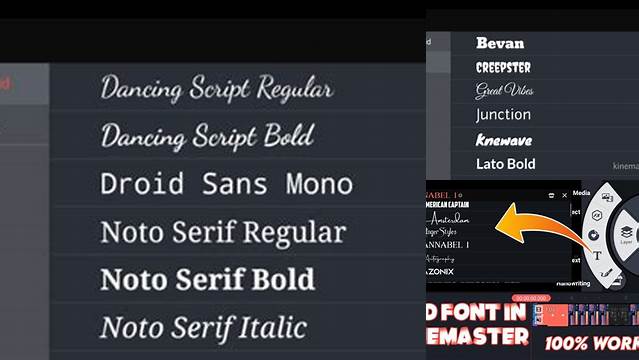
KineMaster Fonts Guide: Your Text Style Handbook
Hey guys! Let's dive deep into the world of KineMaster fonts. If you're a video editing enthusiast, a budding content creator, or just someone who loves to add some pizzazz to their videos, then you're in the right place. This comprehensive guide is all about KineMaster fonts, and how you can use them to elevate your video projects. We'll cover everything from the default font options available in KineMaster to how you can install and utilize custom fonts, ensuring your videos truly stand out. Get ready to transform your videos into visually stunning masterpieces with the perfect text styles!
Understanding KineMaster Fonts: The Basics
So, what exactly are KineMaster fonts? Simply put, they are the text styles you use to add titles, captions, and other text elements to your videos within the KineMaster application. Think of them as the clothing for your words! Just like you choose the right outfit for an occasion, selecting the right font can drastically change the tone and impact of your video. The beauty of KineMaster fonts lies in their versatility; they allow you to convey different messages, evoke various emotions, and ultimately, make your content more engaging. KineMaster comes pre-loaded with a selection of default fonts, offering a solid starting point for your video editing endeavors. These default fonts are generally safe choices, well-suited for a variety of video projects. However, the real magic happens when you explore the possibility of adding custom fonts, which can give your videos a unique and personalized touch.
When choosing a font, consider your video's overall theme, the message you want to convey, and your target audience. For instance, a playful, cartoonish font might be perfect for a kids' video, while a sleek, modern font might suit a tech review. Legibility is also paramount. No matter how stylish a font looks, if it's difficult to read, it defeats the purpose. Try to select fonts that are clear and easy on the eyes, especially when used in captions or subtitles. Furthermore, always ensure that the font you choose complements your video's visual elements, such as the background, colors, and overall aesthetic. The goal is to create a cohesive and visually appealing experience for your viewers. With a little bit of creativity and some smart font choices, you can make your videos truly memorable. This is your ultimate guide. We'll break down all the essential information you need to know about KineMaster fonts so that you can make informed and creative decisions!
Exploring Default Fonts in KineMaster
Alright, let's talk about the default fonts in KineMaster. When you first open KineMaster and start working on a video, you'll find a selection of pre-installed fonts readily available for use. These are the go-to options if you want to add text quickly without the hassle of downloading and installing new fonts. The default fonts in KineMaster are generally pretty versatile, covering a range of styles to fit various video projects. They usually include basic fonts like Arial, Times New Roman, and Open Sans, offering you simple, readable options for titles, captions, and other text elements. These fonts are designed to be legible and adaptable to different video styles. While they might not be the flashiest, they're reliable and effective for getting your message across. To access these fonts, simply add a text layer to your video within KineMaster. Then, tap on the font selection option, and you'll see a list of the default fonts available.
Experiment with each font to see how it looks and feels with your video content. Consider the readability, the style, and how well it complements the other visual elements of your video. Remember, the goal is to create a harmonious visual experience. Although the default fonts may seem limited at first glance, they offer a solid foundation for your video editing needs. You can always adjust the size, color, and style of these fonts to create a look that fits your video's style. Bold, italic, and underline options are often available, allowing you to customize the text further. If you're a beginner or simply need to add text quickly, the default fonts in KineMaster are a great starting point. In the end, the power of KineMaster fonts, whether default or custom, lies in your creativity and how you choose to utilize them. Keep exploring, keep experimenting, and most importantly, have fun with it!
How to Add and Use Custom Fonts in KineMaster
Tips for Choosing the Right Font for Your Video
Choosing the right font can make or break your video. Let’s look at some essential tips to help you make the perfect font selection. Firstly, consider your video's overall tone and style. Is your video fun and lighthearted, or is it serious and professional? Choose a font that aligns with the mood you want to convey. A playful, quirky font might be perfect for a comedy skit, while a clean, modern font might be better suited for a corporate presentation. Secondly, think about your target audience. What kind of fonts do they like? Are they more into traditional or contemporary styles? Understanding your audience's preferences will help you choose a font that resonates with them.
Thirdly, prioritize legibility. The text in your video needs to be easy to read, especially if you are using it for captions or important information. Avoid fonts that are too elaborate or ornate, as they can be difficult to decipher. If you are using a font for a headline, you can get away with something a bit more decorative, but for body text, stick to clear and simple fonts. Fourthly, consider the size and placement of your text. Make sure that the font size is large enough to be read easily on different screens. Consider the background of your video. If it’s a busy background, you might want to choose a bold font with a contrasting color to ensure that the text stands out. Experiment with different font styles, sizes, and colors. Try to use font pairings. Pairing different fonts is an art in itself! Choose two or three fonts that complement each other. Finally, keep it simple and avoid using too many different fonts in a single video. Using too many fonts can create a cluttered and unprofessional look. Stick to a limited number of fonts and use them consistently throughout your video. By following these tips, you can make sure that your font choices enhance your video and help you communicate your message effectively.
Troubleshooting Common Font Issues in KineMaster
Even though using KineMaster fonts is usually straightforward, sometimes things can go wrong. Don't worry, we've got you covered. Let's look at some common font issues and how to solve them. One of the most common problems is that the font doesn't show up after you've installed it. This can happen for a few reasons. Ensure that you've installed the font correctly on your device and that KineMaster has the permission to access the font files. If you're still having issues, try restarting both your device and KineMaster. Another common problem is the font appearing distorted or incomplete. This can happen if the font file is corrupted or if KineMaster is not compatible with the font format. Make sure you're using a compatible font file, like .ttf or .otf format. If the problem persists, try downloading the font from a different source. Font rendering issues can occur on various devices, and may cause visual artifacts, or display problems. This might be caused by the KineMaster software, device limitations, or the fonts themselves. Try changing the size or the styling. Some fonts may simply not work with specific devices or KineMaster. Always preview your video on different devices.
If your font is too small or too large, you can adjust the size of the text in the font settings. Experiment with different sizes until you find one that looks right. If your font looks blurry, it might be because the resolution of your video is too low or the font is not designed for high-resolution displays. To fix this, you can increase the resolution of your video or choose a font that is designed for high-resolution displays. Finally, sometimes you might have trouble finding the fonts you want. Make sure you're searching for the font correctly and that the font is available in the font list. Also, make sure you've installed the font correctly on your device. Following the steps above will help you solve the most common issues!
Advanced KineMaster Font Techniques
Now, let's dive into some advanced techniques to take your KineMaster fonts to the next level. Once you are comfortable with the basics, it's time to explore more complex options! One of the most exciting techniques is using font animations. KineMaster offers a range of animation options that can be applied to your text. These can be used to make your titles and captions more dynamic and engaging. You can make the text fade in, slide in, bounce, or even spin. The possibilities are endless! To use font animations, select your text layer, go to the animation settings, and choose from the available options. Experiment with different animations to see how they look with your font and video content.
Another advanced technique is layering text. This allows you to create more complex and visually appealing text effects. For instance, you can layer different text elements on top of each other, using different fonts, colors, and styles. This is a great way to add depth and dimension to your text. To layer text, add multiple text layers to your video. Then, adjust the position, size, and other settings of each layer to create the desired effect. Additionally, consider using text outlines and shadows. These are great ways to make your text stand out from the background and make it easier to read. Experiment with different colors, sizes, and blur levels. When you use text outlines and shadows, your text is more readable and adds a professional touch to your videos. Using text overlays and backgrounds are other advanced options. These are good when you want to add some extra visual interest to your text. Use shapes, colors, and images. For instance, you can add a colored background behind your text to make it more legible or add a shape behind the text to create a more interesting visual effect. Combine these techniques! The key to mastering KineMaster fonts is to experiment and get creative. Don't be afraid to try new things and to push the boundaries of what's possible. With a little bit of practice, you can create stunning videos that captivate your audience.
Conclusion: Unleash Your Creativity with KineMaster Fonts
So, there you have it, guys! A comprehensive guide to KineMaster fonts. We've covered everything from the basics to advanced techniques, helping you master the art of text styles in your video projects. Now, you're ready to create visually stunning videos that will capture the attention of your viewers. Remember to choose the right font for your video, install custom fonts, and experiment with animations, outlines, and shadows. The possibilities are endless.
Whether you're a beginner or an experienced video editor, KineMaster fonts offer a powerful way to enhance your content. So, download the app, explore the font options, and unleash your creativity. Have fun creating amazing videos! We hope this guide has provided you with valuable insights and inspiration. Go forth, create, and let your videos shine! We cannot wait to see what you create. Keep experimenting, keep learning, and most importantly, keep having fun! Remember, the best videos are those that tell a story, evoke emotions, and leave a lasting impression. By choosing the right KineMaster fonts, you're one step closer to achieving all of that. Happy editing!